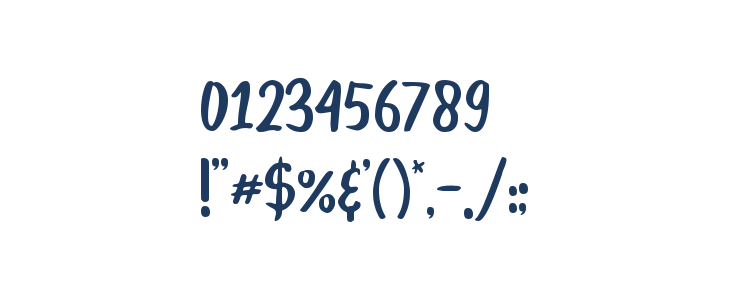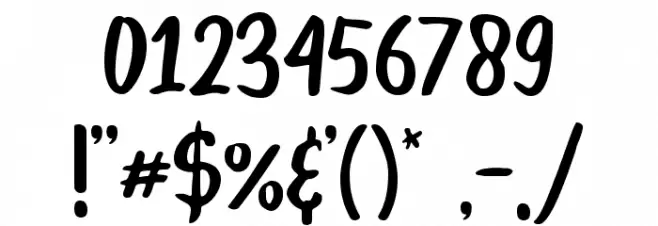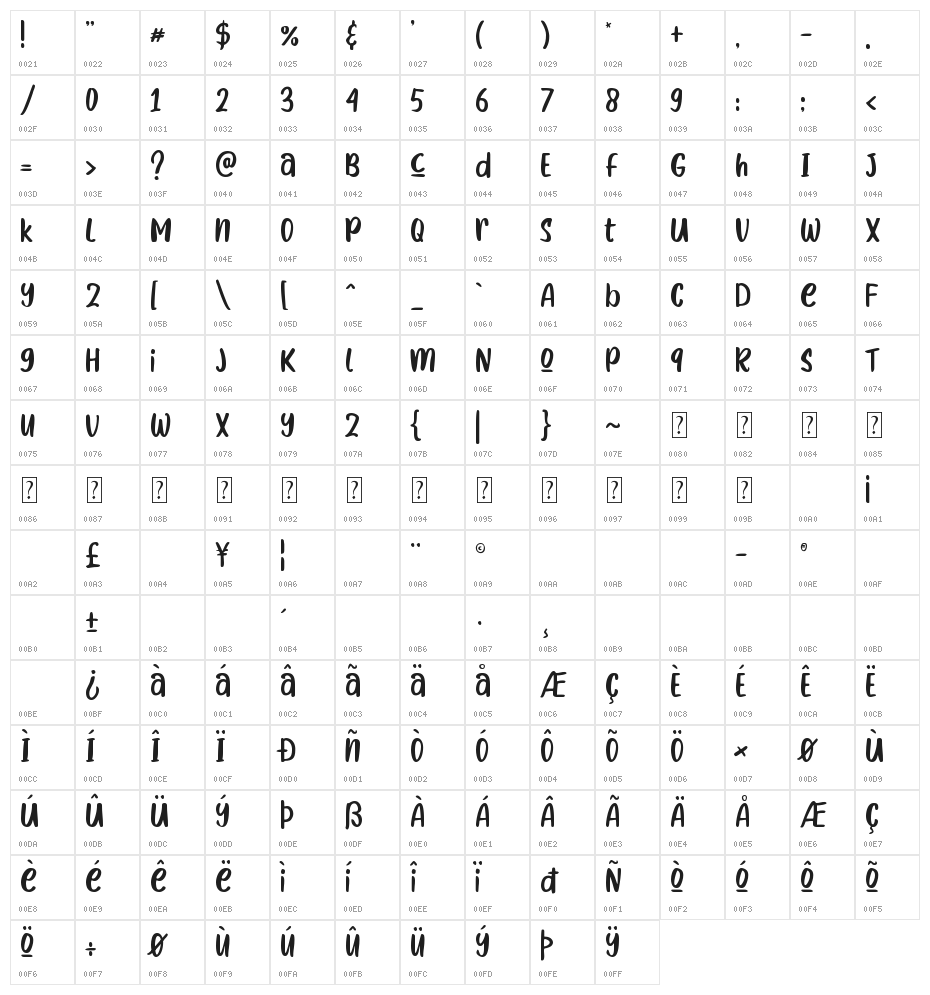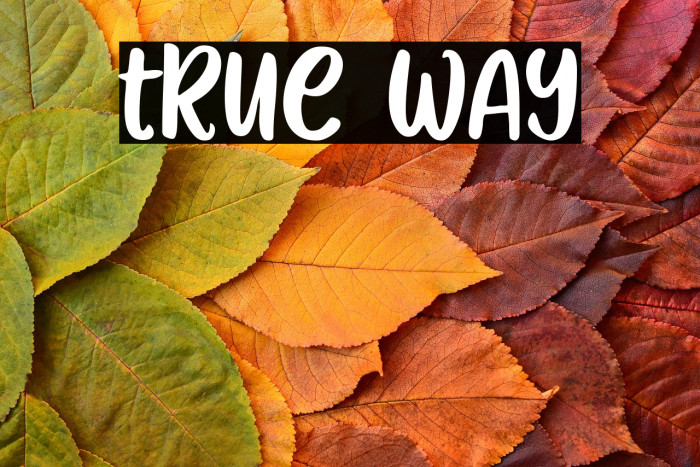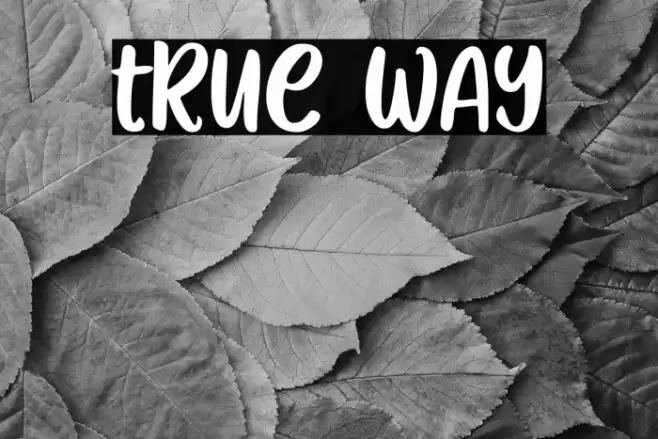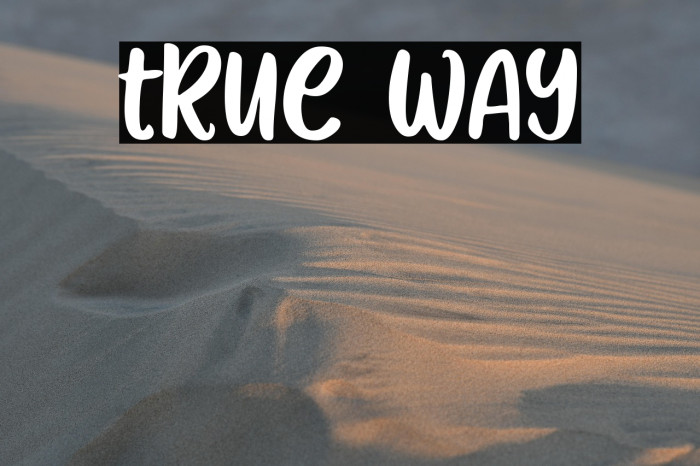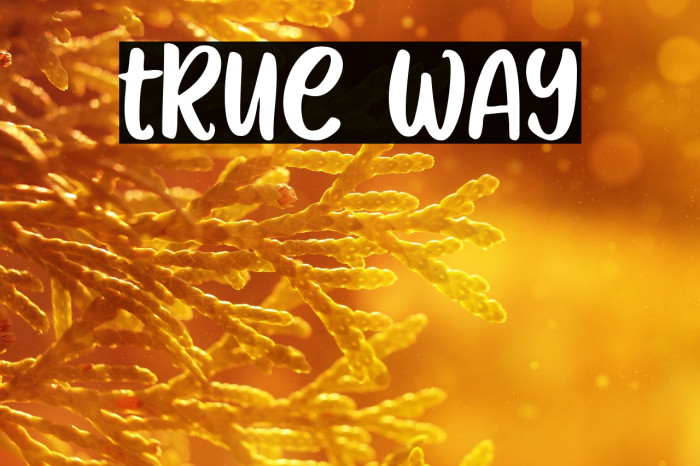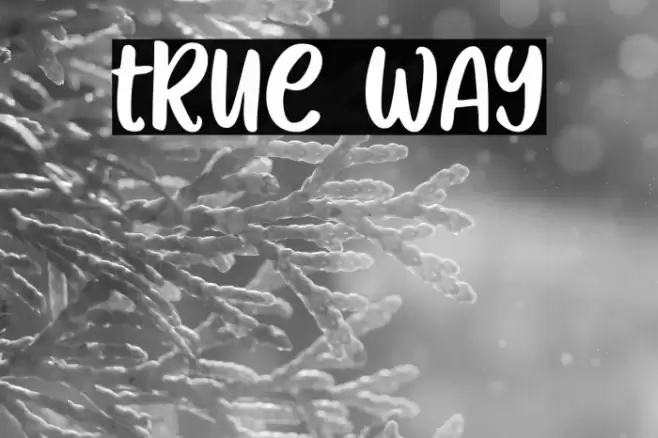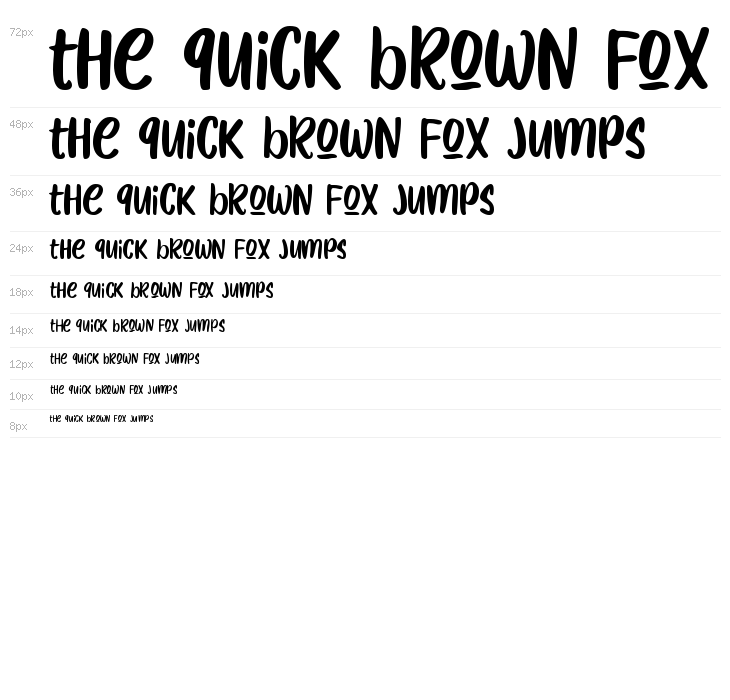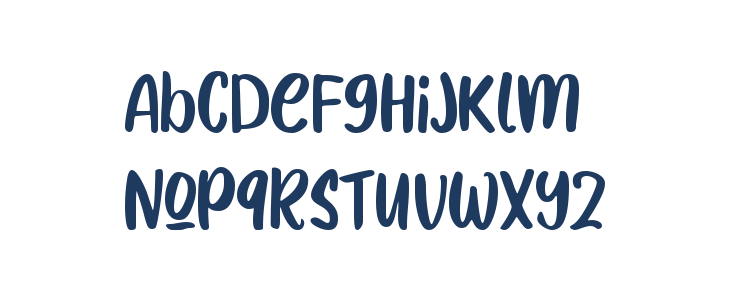
True Way Font
True Way Description
This font features a playful and bold handwritten style, characterized by its smooth curves and slightly irregular letterforms. The letters are closely spaced, giving a compact appearance, while maintaining readability. The strokes are consistent in thickness, providing a uniform look across all characters. The uppercase and lowercase letters share a similar style, with rounded edges and a casual feel. Numbers and special characters are designed to match the overall aesthetic, making this font versatile for various uses. Its informal and friendly appearance makes it suitable for creative projects that require a personal touch.
| Proposed Projects | Ideal for greeting cards, children's books, playful branding, and social media graphics. |